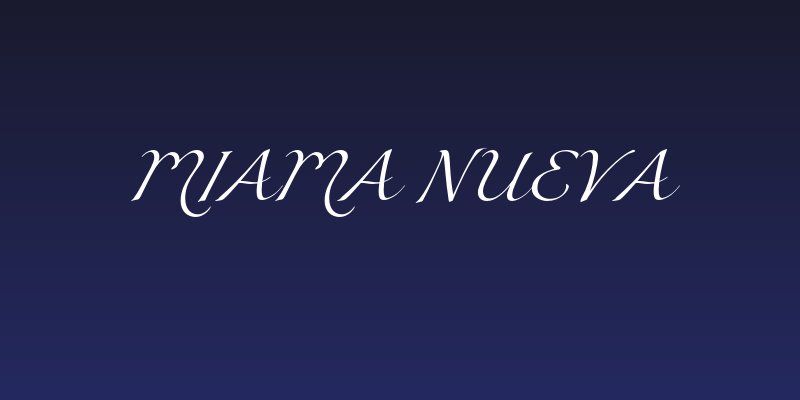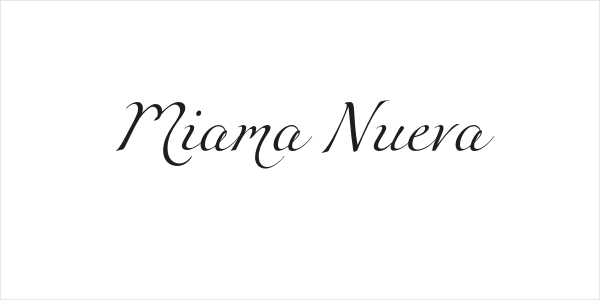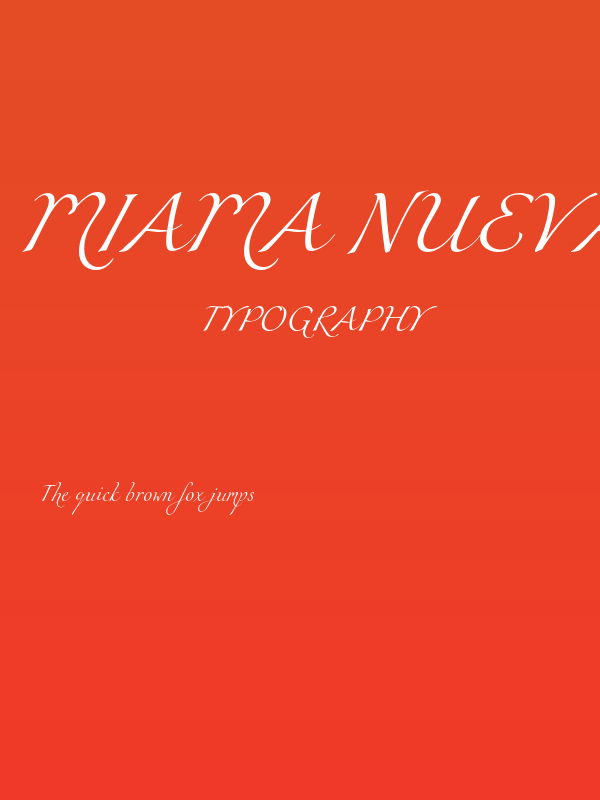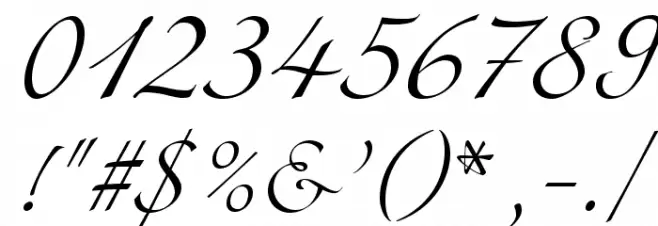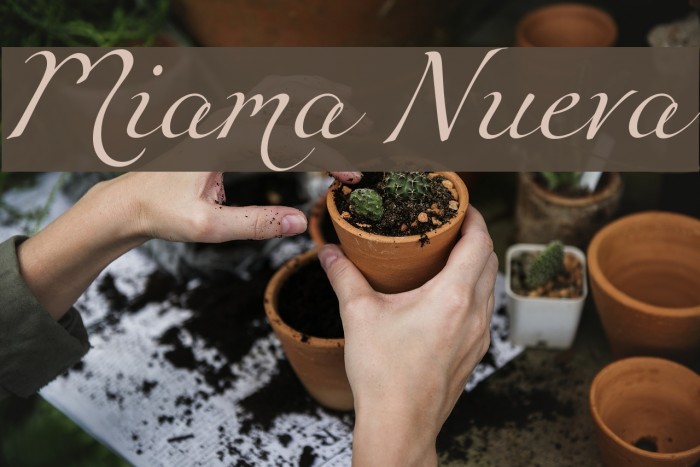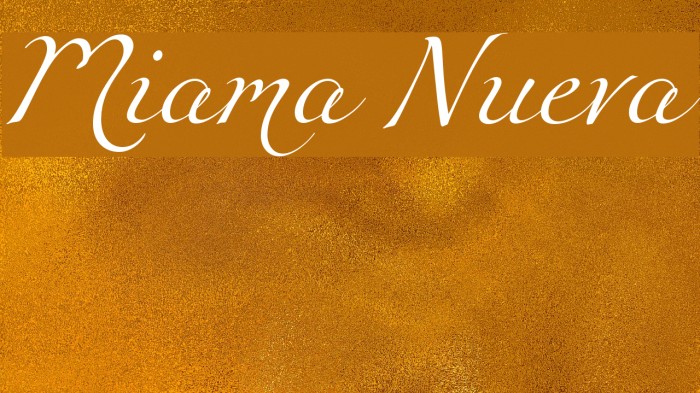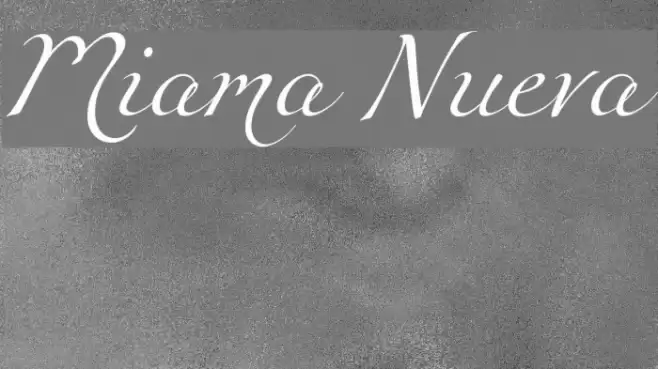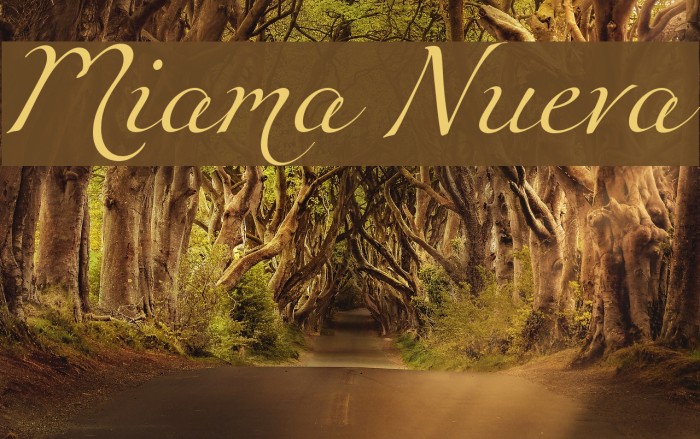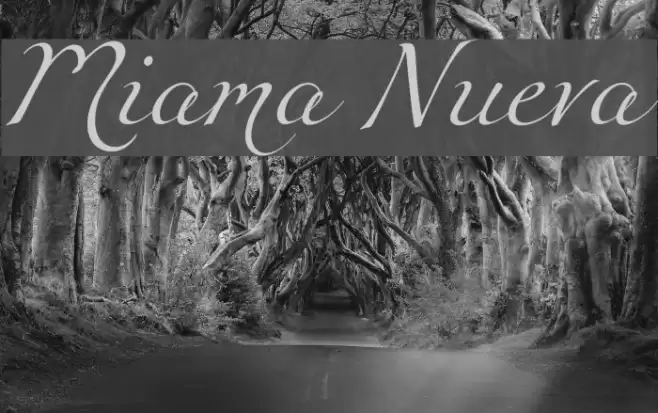
Miama Nueva Font
Miama Nueva Description
This elegant script font features flowing, cursive strokes that convey a sense of sophistication and grace. The characters are intricately designed with smooth curves and delicate lines, creating a harmonious balance between each letter. The uppercase letters are slightly more ornate, with extended flourishes that add a touch of drama, while the lowercase letters maintain a consistent rhythm and fluidity. The numerals and special characters are crafted with the same attention to detail, ensuring a cohesive look across all elements. This font is perfect for projects that require a touch of elegance and refinement.
| Overall Style | Elegant |
| Use Case | Logos, Invitations, Branding |
| Proposed Projects | Ideal for wedding invitations, luxury branding, elegant packaging, and formal event materials. |